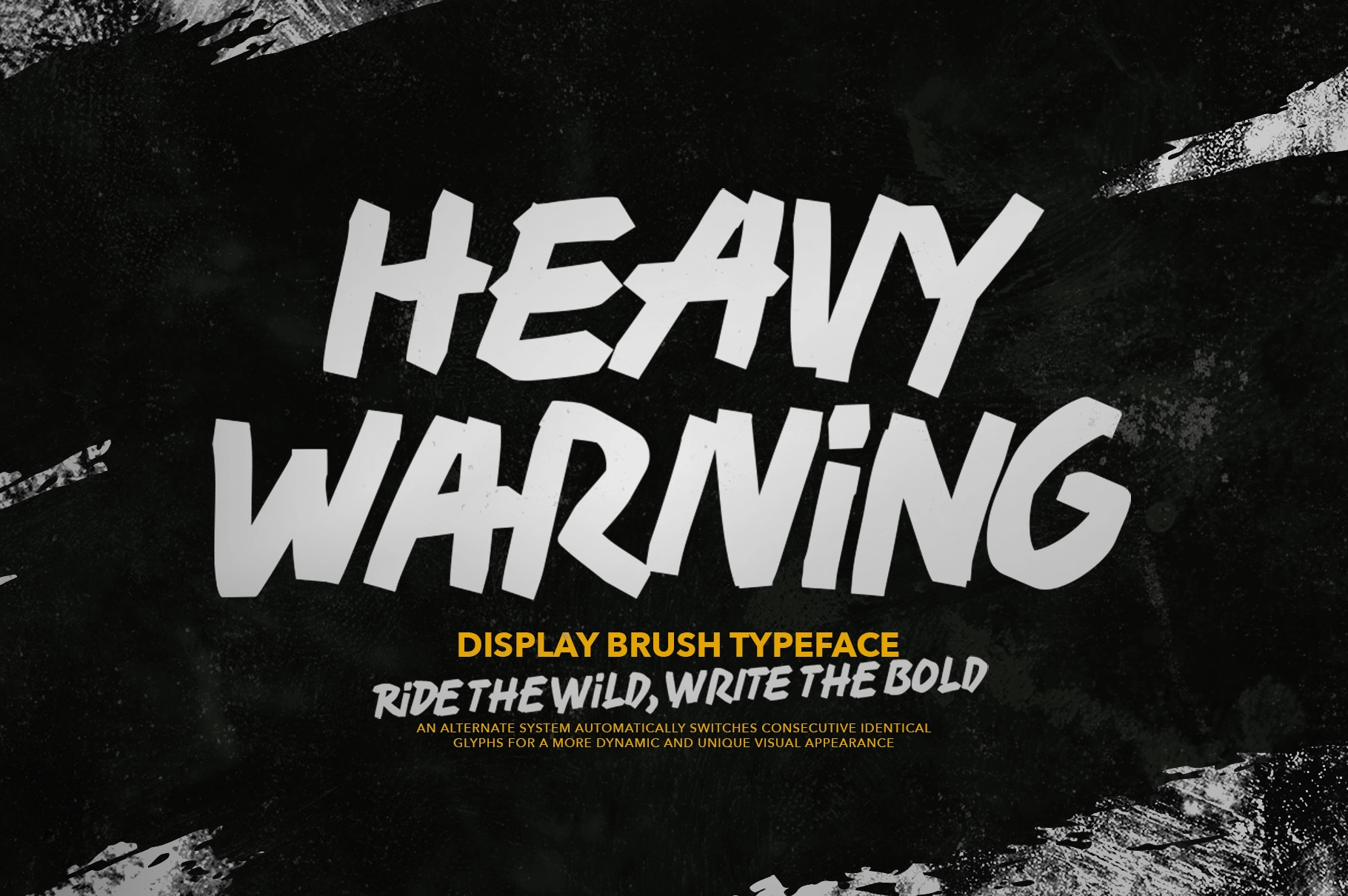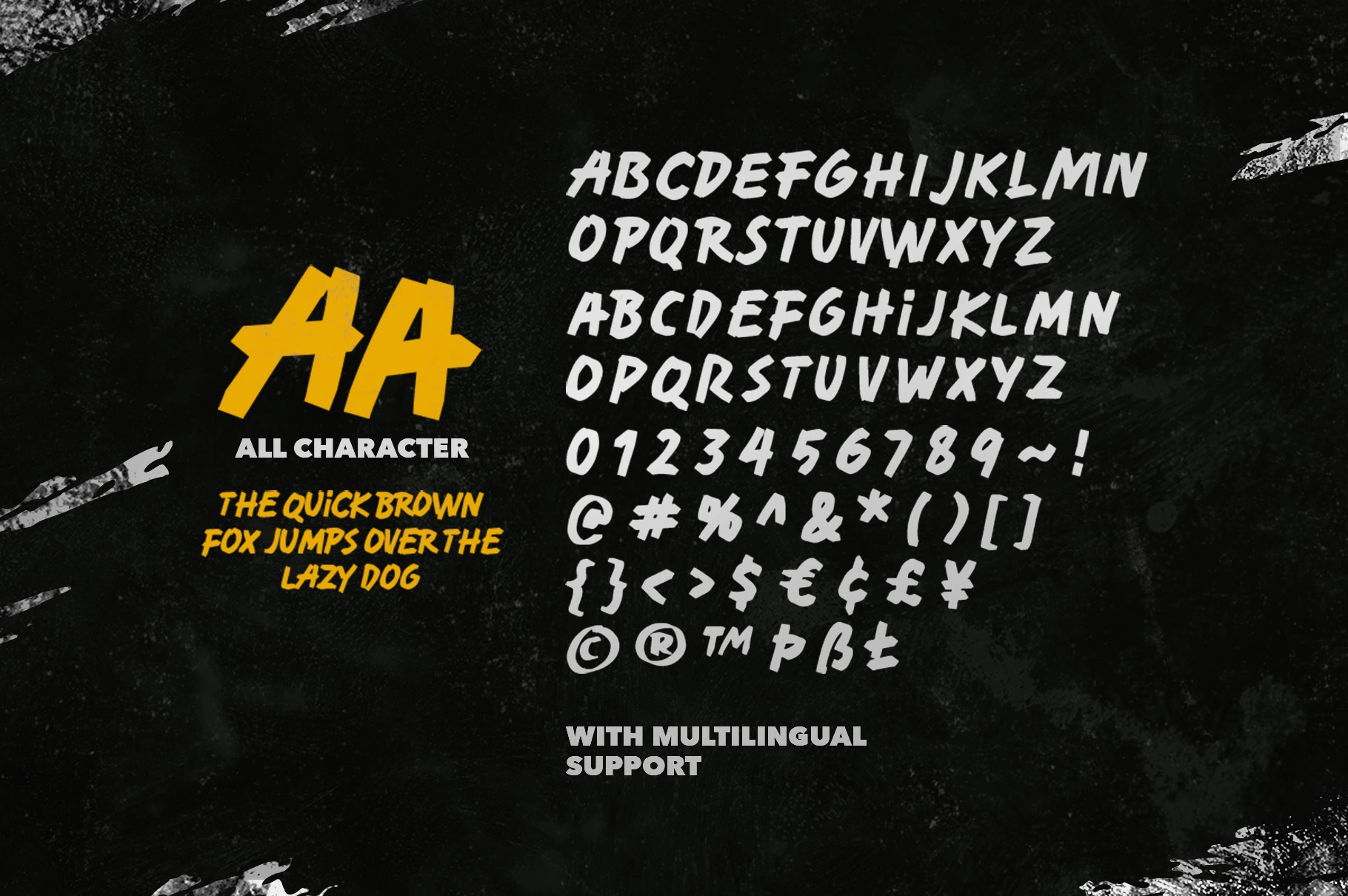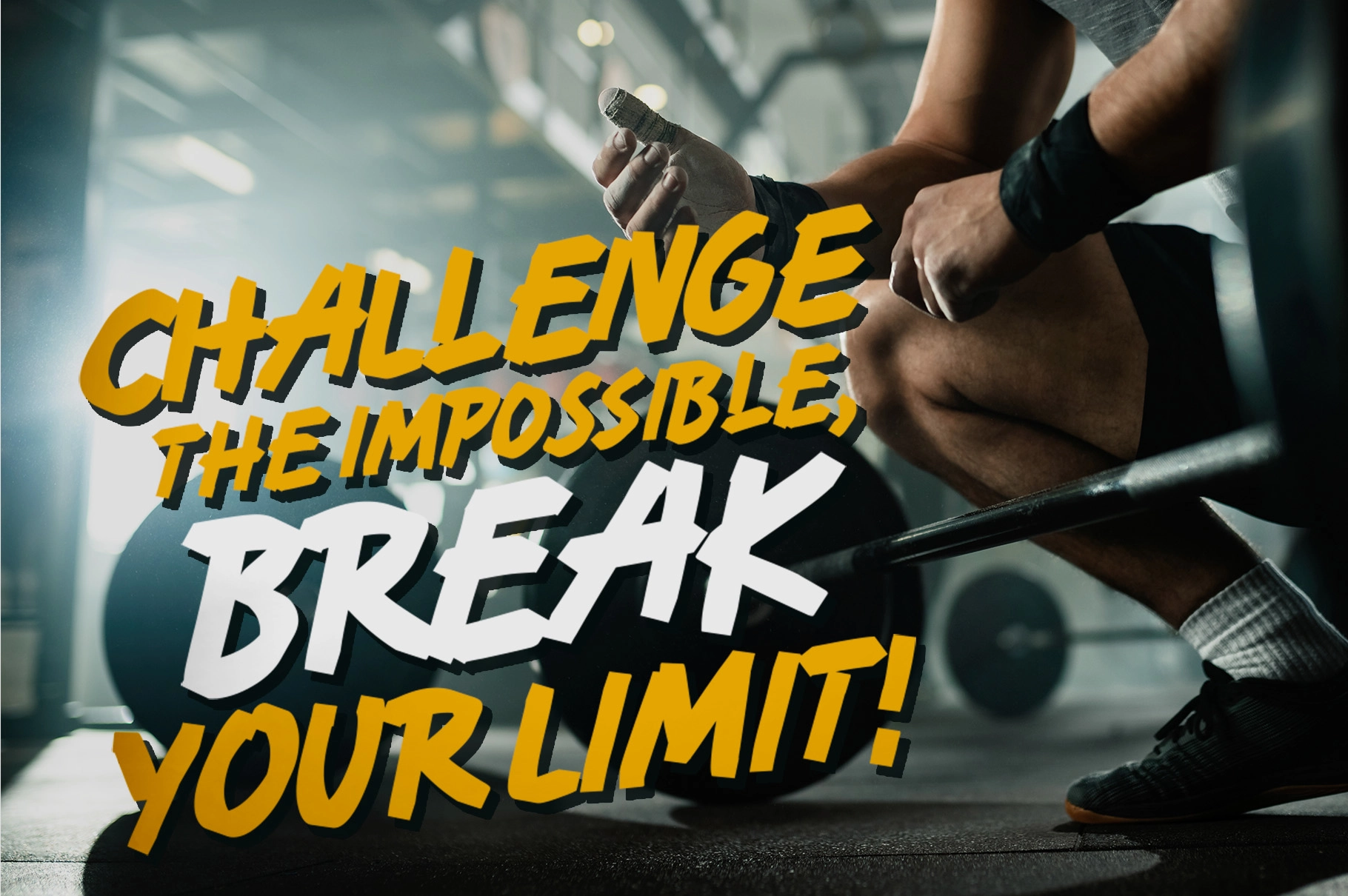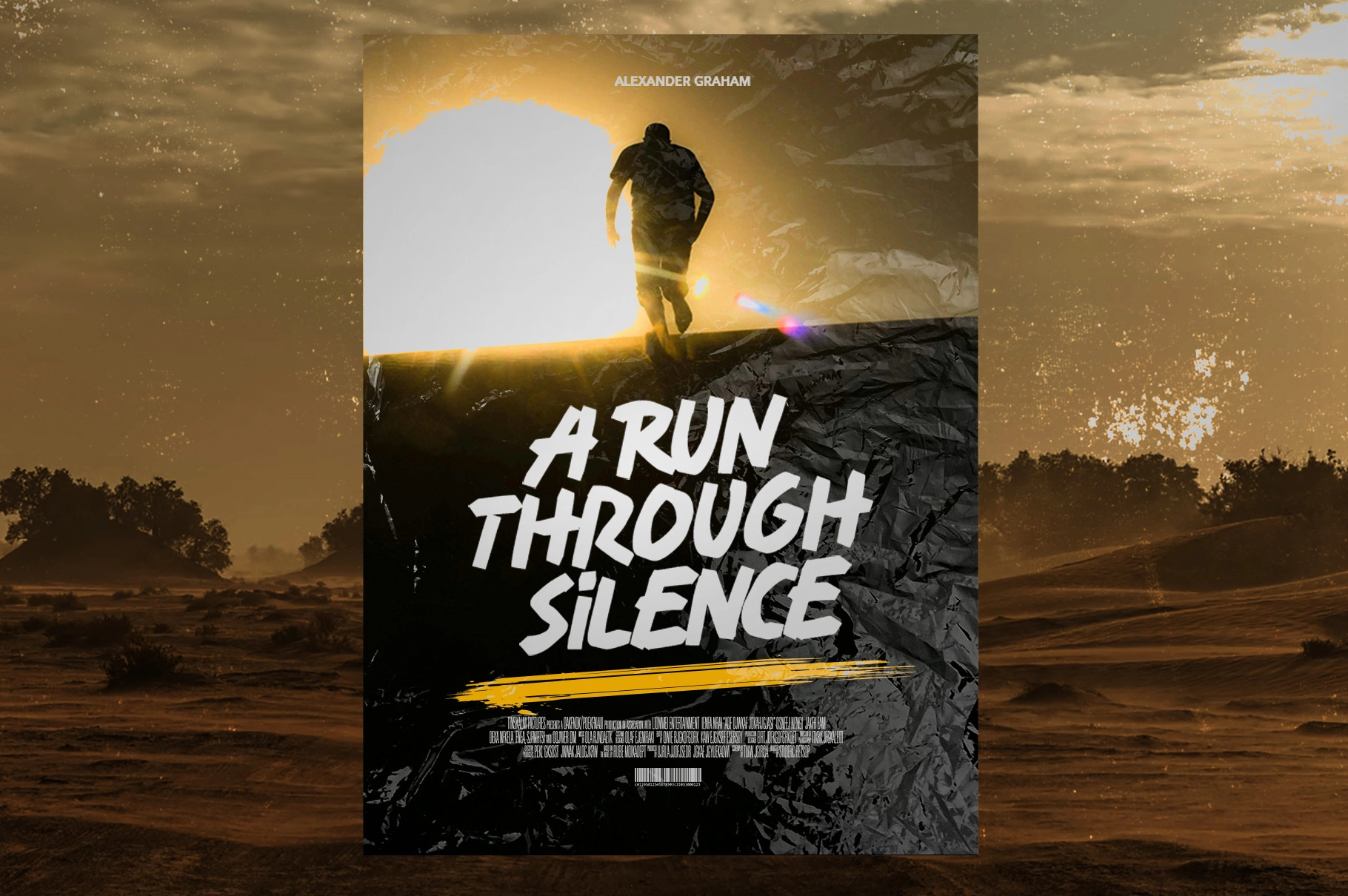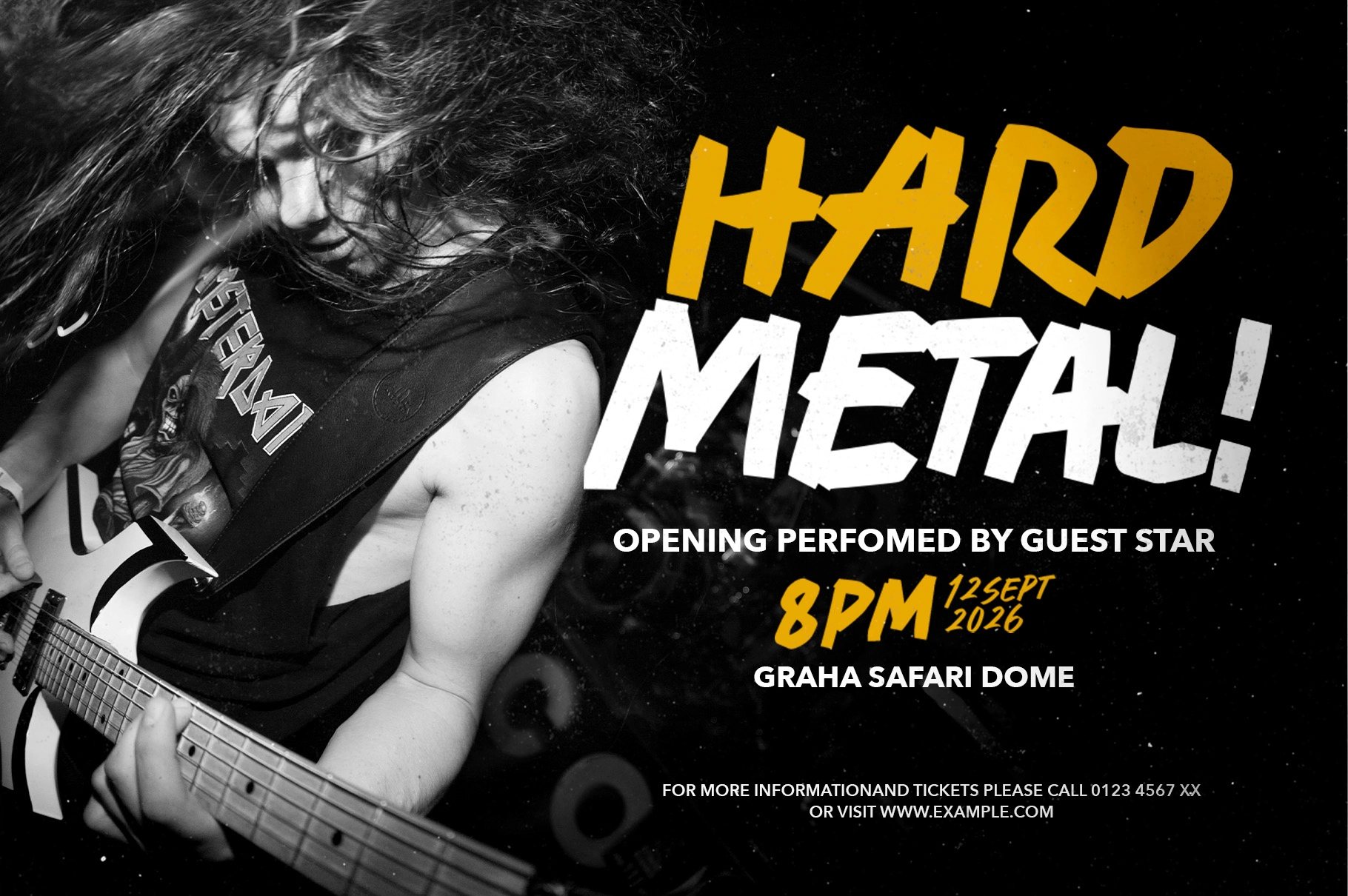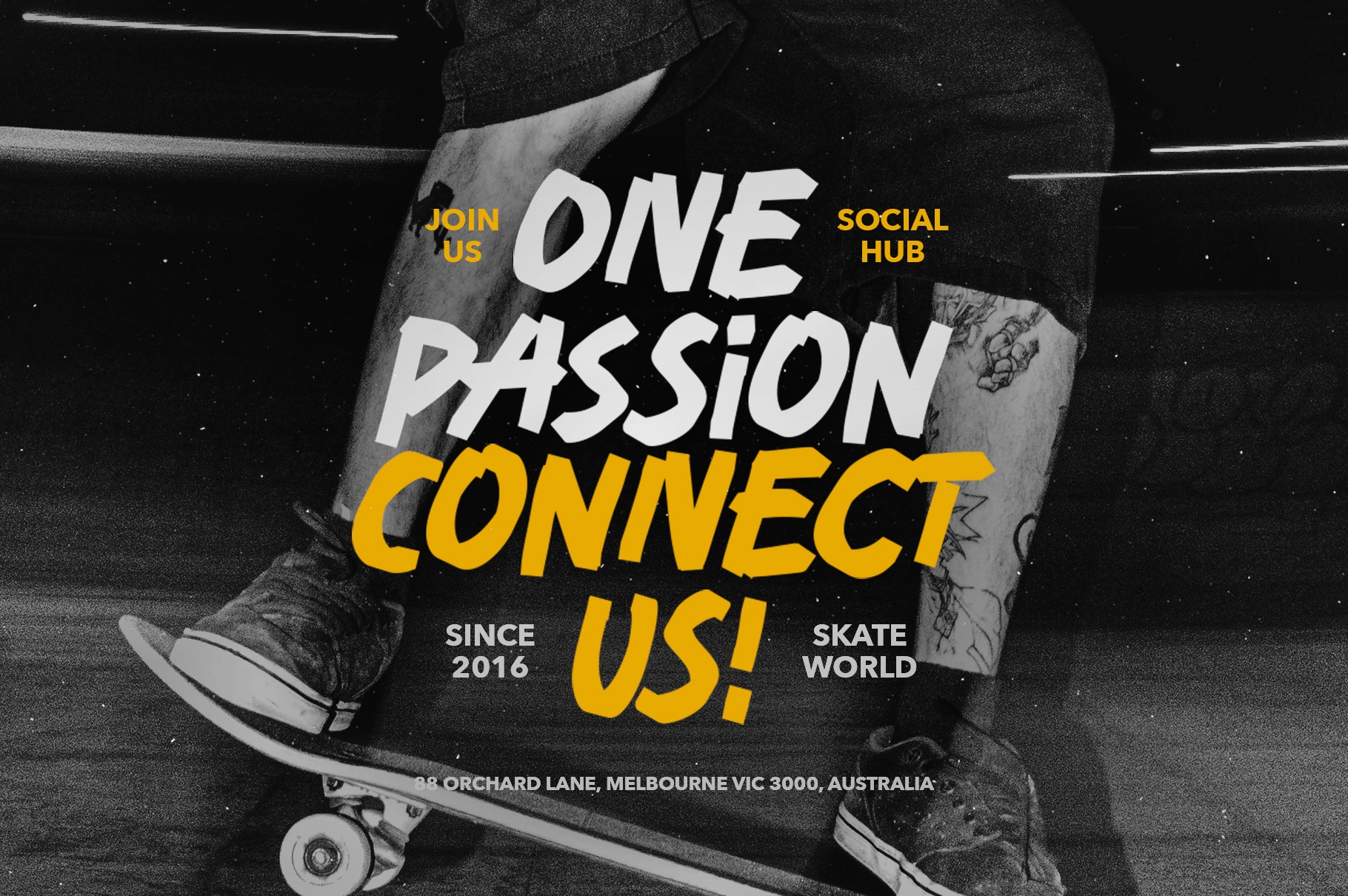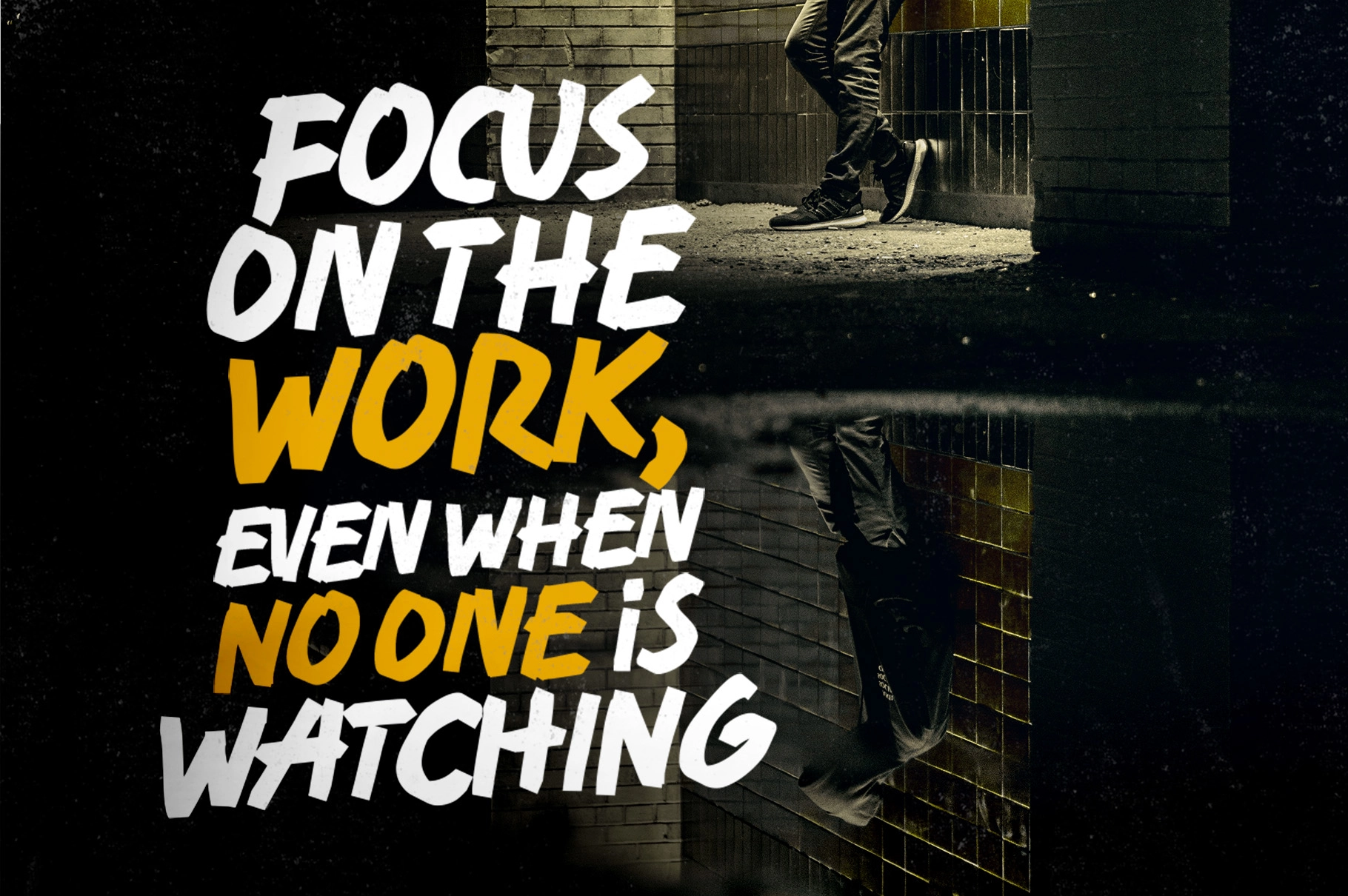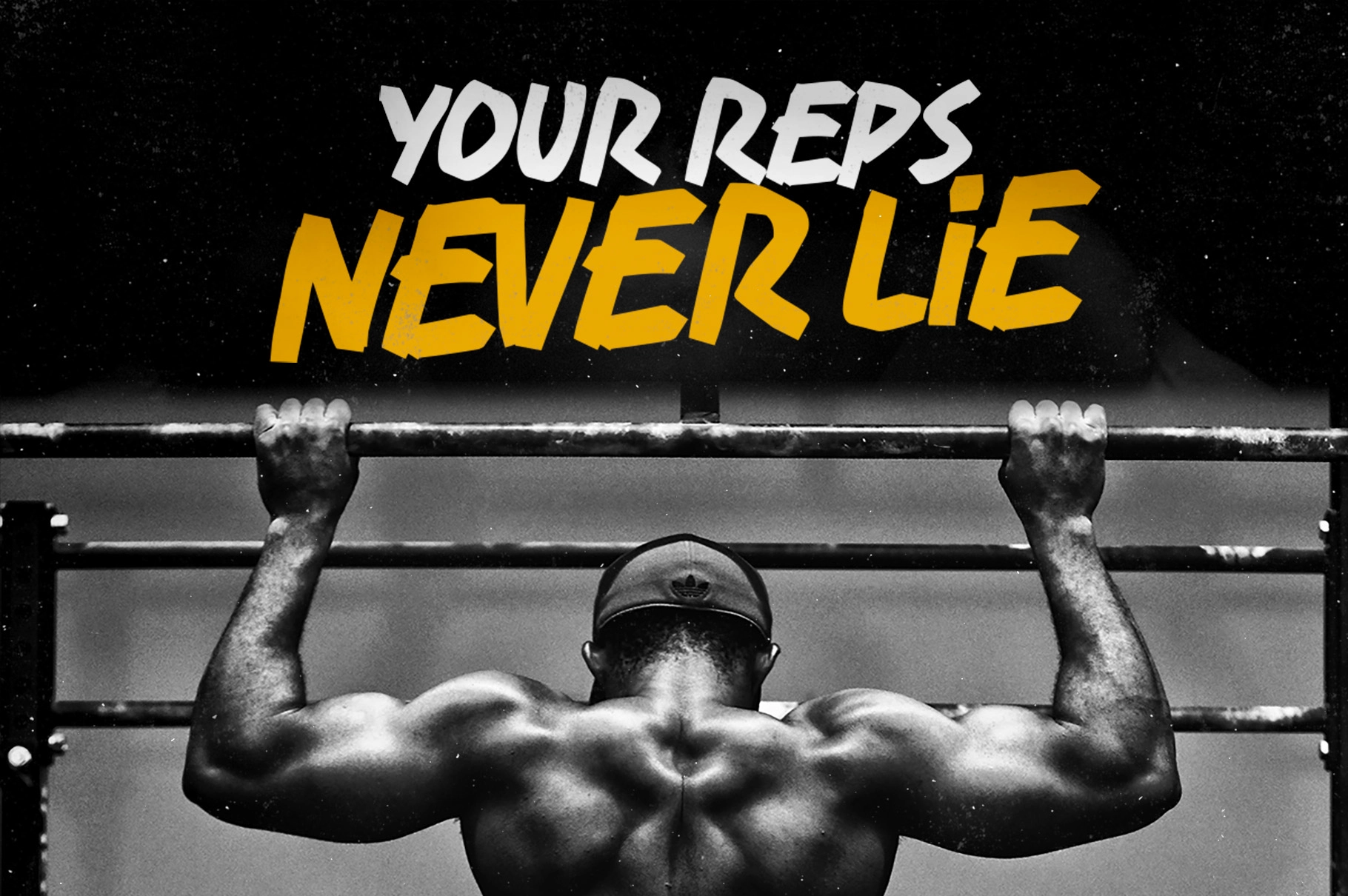
Heavy Warning - Bold Brush Display Font
Heavy Warning
The font is a bold brush display typeface with rough strokes, sharp angles, and an urgent hand-drawn rhythm. Its uppercase and lowercase sets are shaped differently, giving text a raw, irregular look that suits loud messages, action graphics, and designs with zero patience for whispering.
Use Heavy Warning for sports posters, gym branding, skate graphics, streetwear prints, motivational quotes, YouTube thumbnails, event flyers, music artwork, comic-style headlines, merch designs, stickers, social media promos, and more. Contextual alternates help repeated letters switch automatically, so the lettering looks less copy-pasted and closer to fast marker work.
- Different Uppercase and Lowercase Shapes
- Contextual Alternates